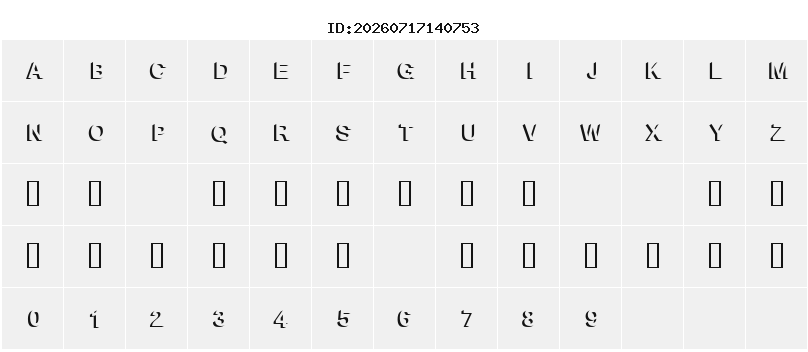
• Font Name: Block Shadow
• Designer: Greg Hatch
• Description: Shadow Block Bold is a font designed by Greg Hatch in 2013.
Block Shadow.ttf is a modern, elegant sans-serif font designed for ultimate readability and visual harmony. Perfect for branding, headlines, web design, and print materials.